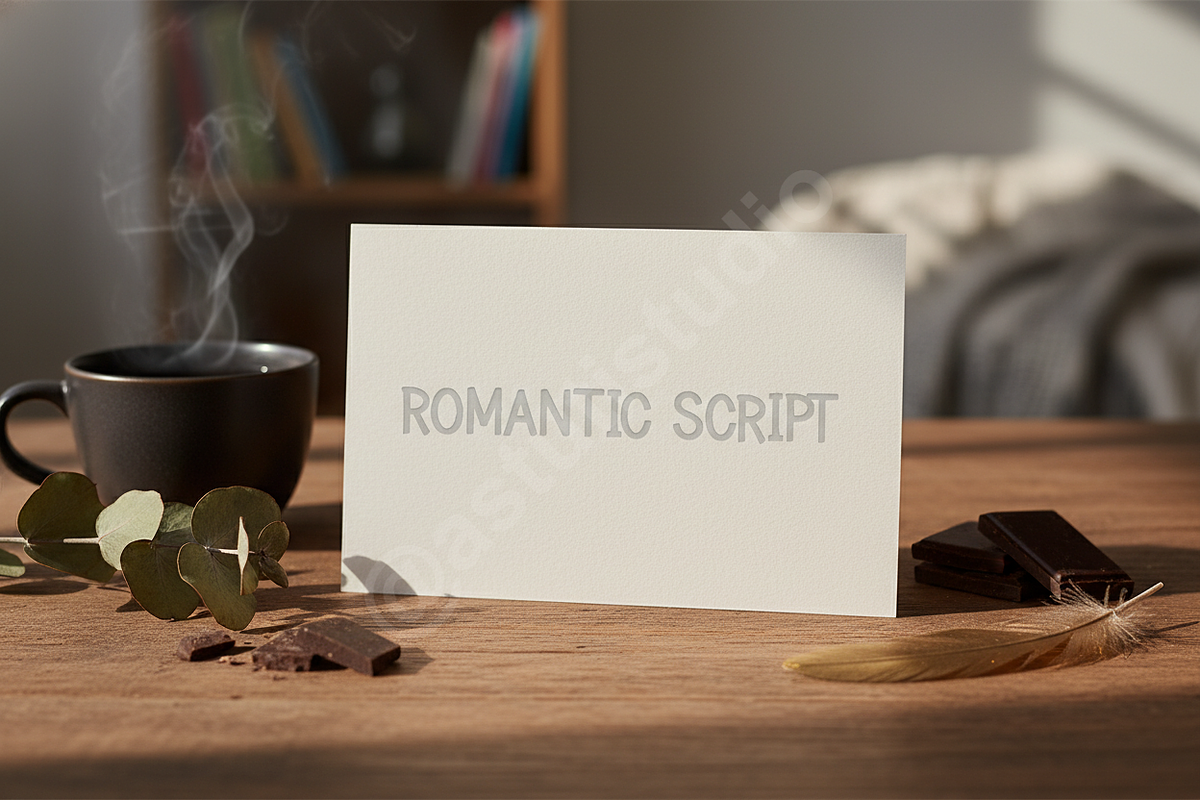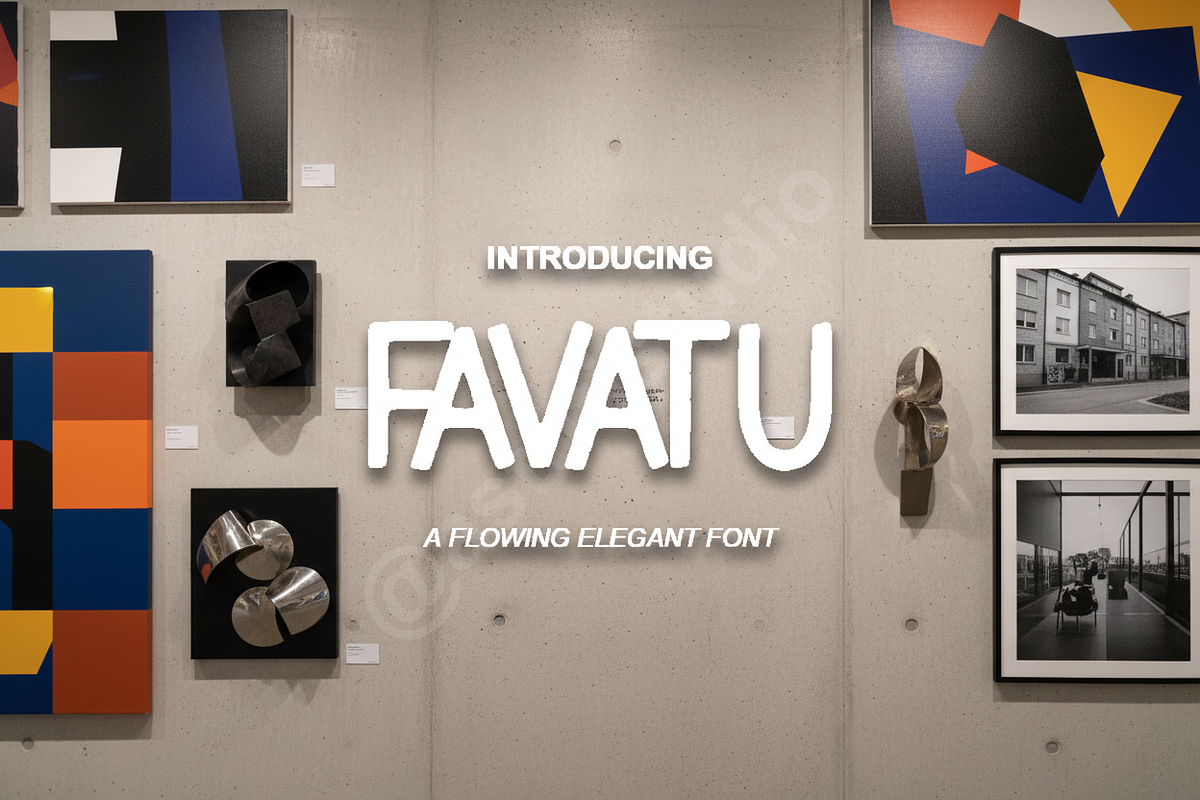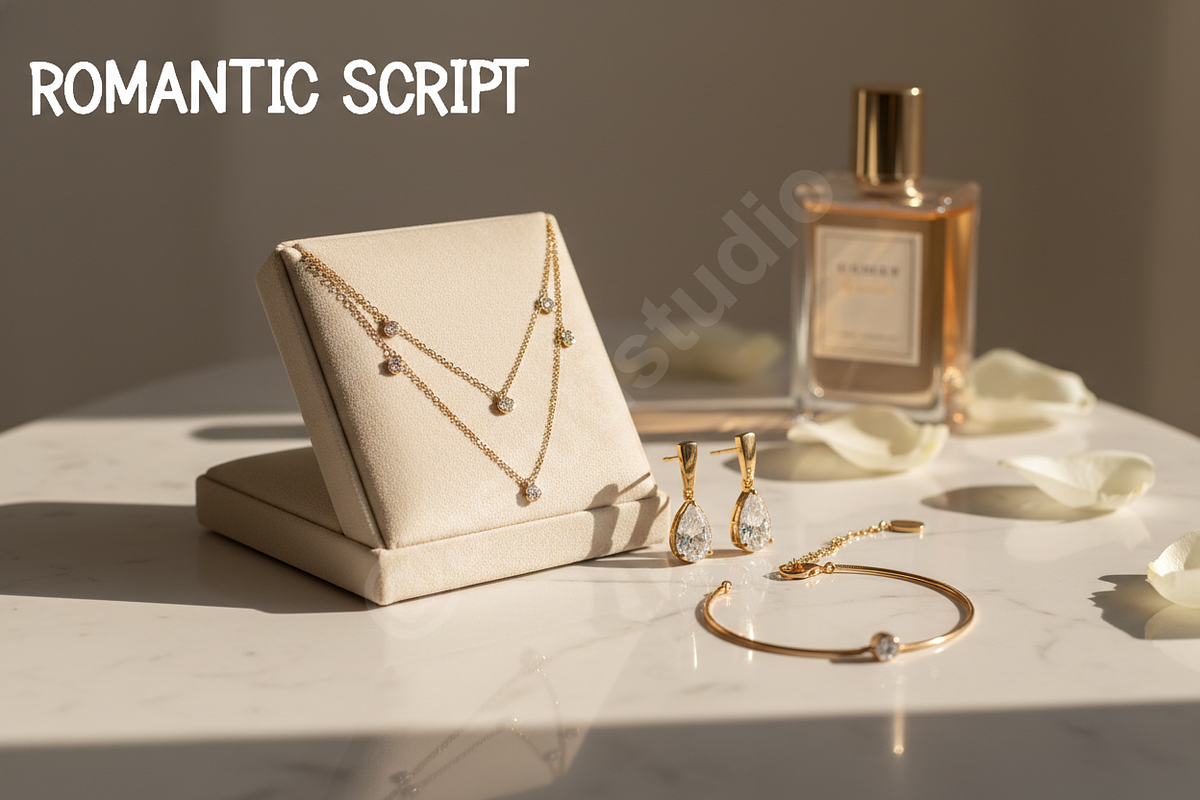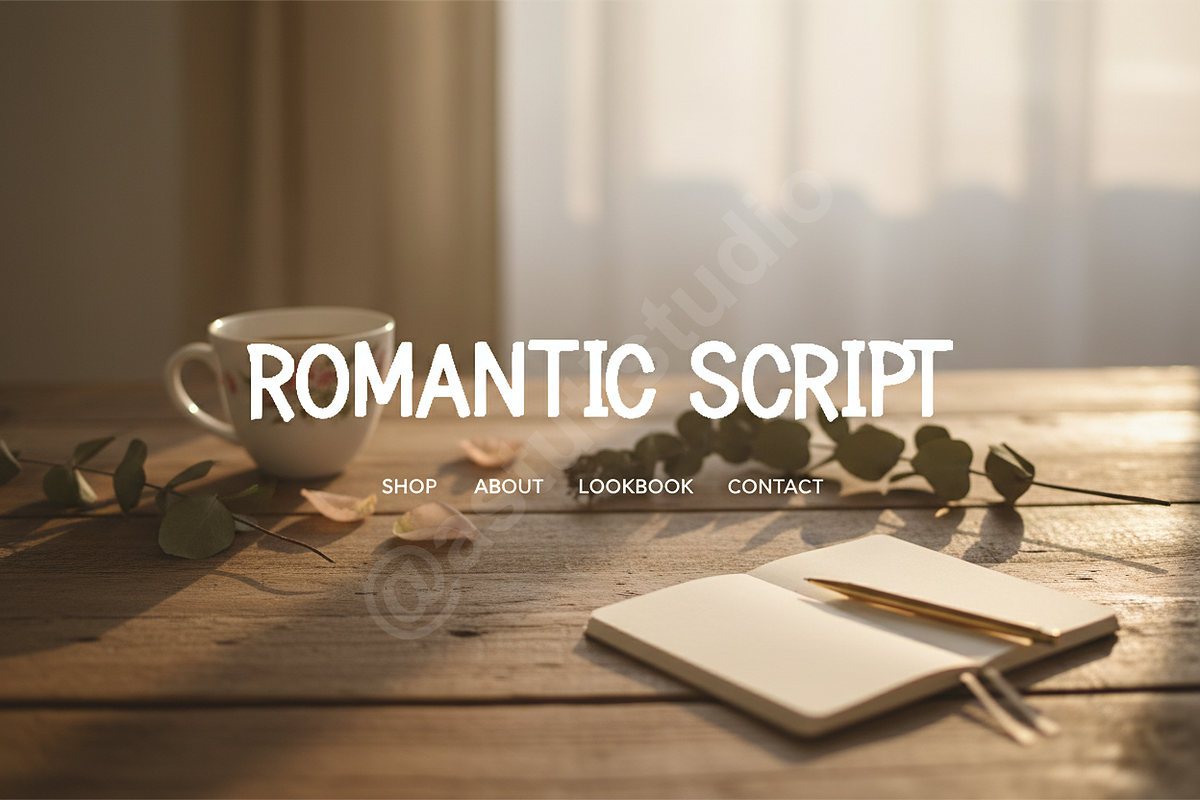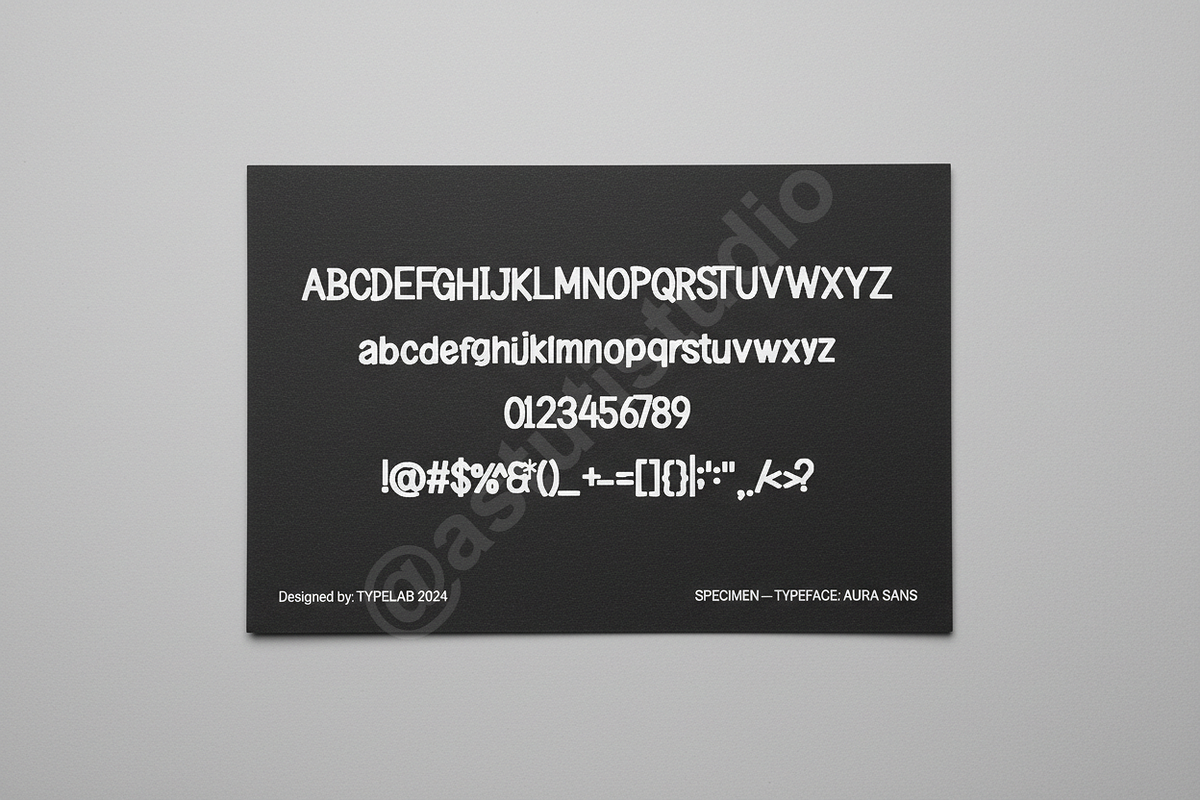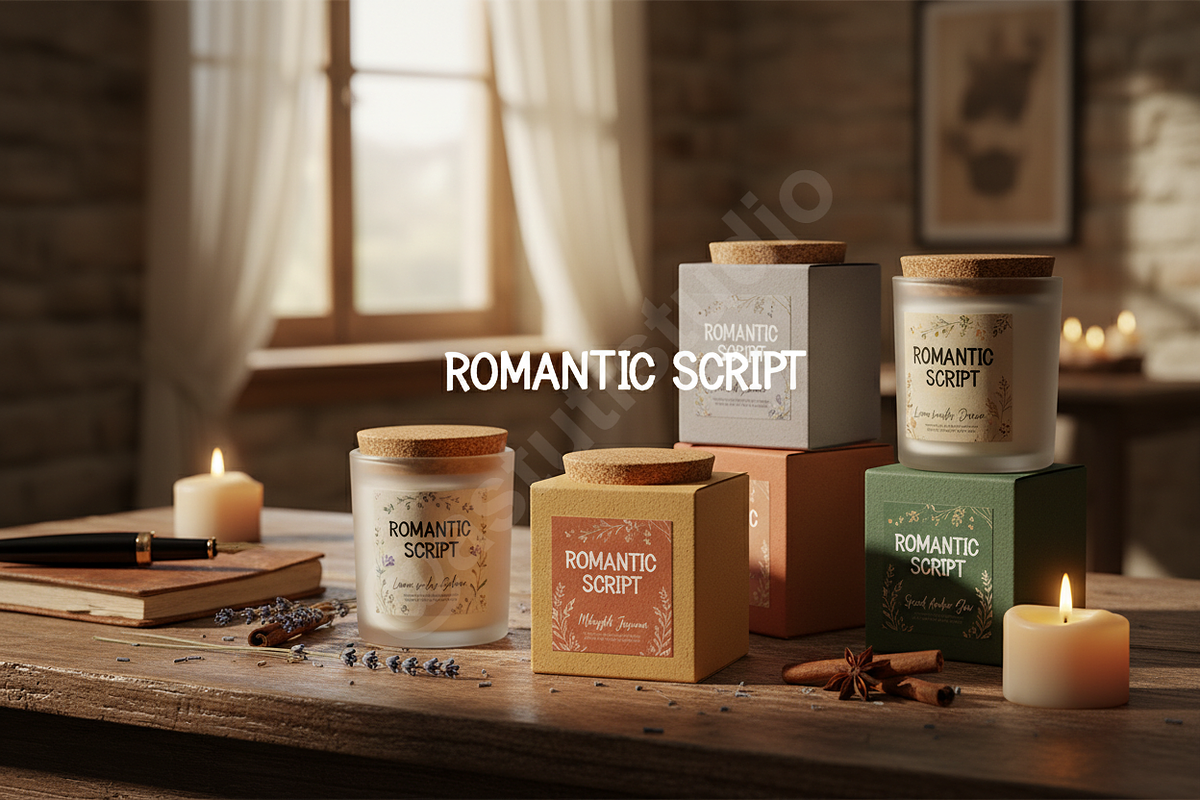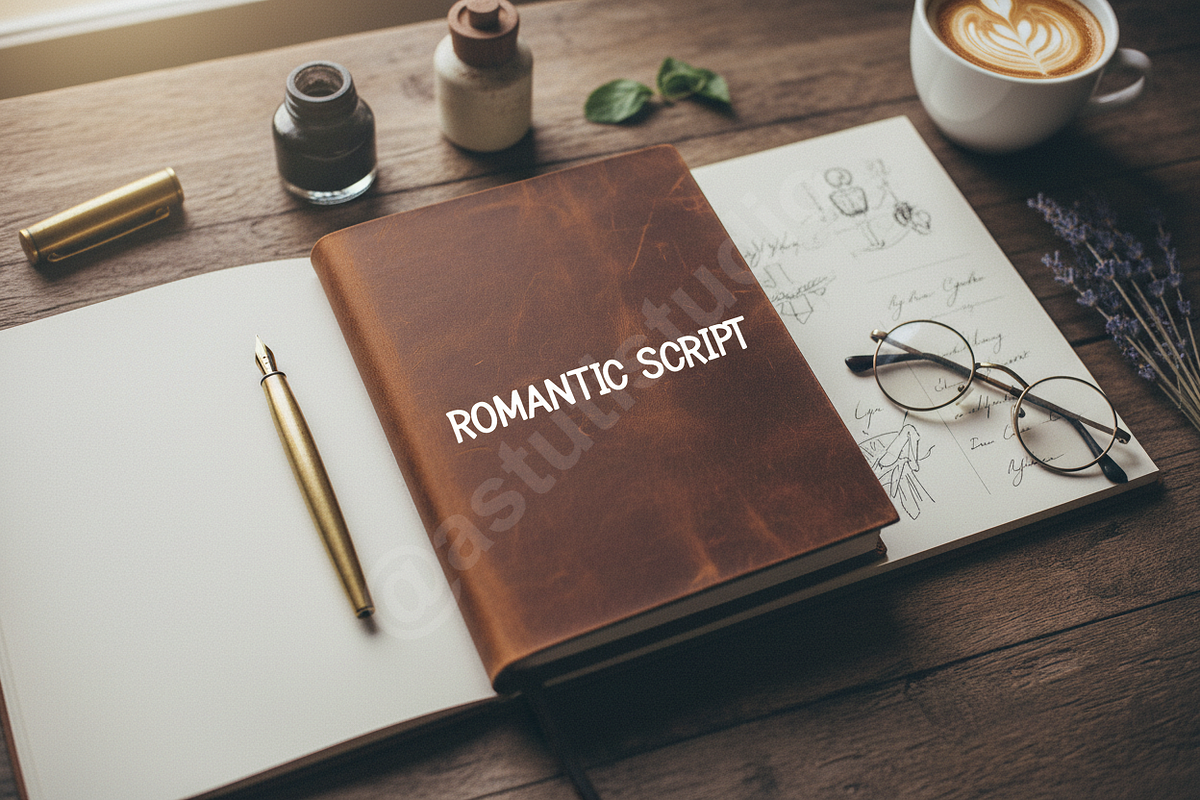
Favatu Elegant Serif: Luxury Display
Introducing Favatu, a meticulously crafted modern serif typeface designed for the discerning creative. Favatu blends timeless elegance with contemporary sophistication, making it the definitive choice for projects demanding a premium aesthetic. Its sharp terminals and balanced proportions ensure maximum impact and readability across print and digital platforms, perfectly suited for luxury fashion, high-end editorial layouts, and impactful social media campaigns.
- Ideal for Luxury Branding & Identity Design
- Unique Alternates and Ligatures for bespoke typographic looks
- Optimized Kerning for seamless flow and professional finish